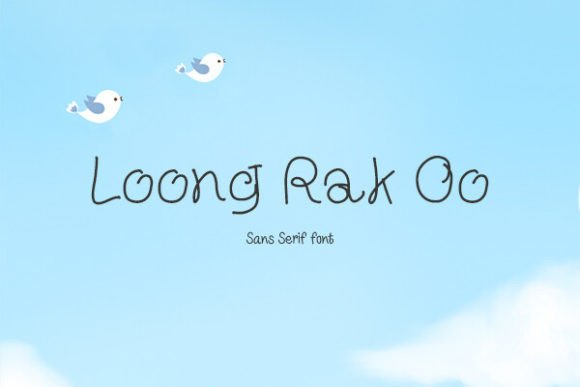
Welcome to the world of Loong Rak Oo, a sans serif font family bursting with charm and playfulness! This unique and eye-catching font style is the brainchild of TanoiCartoonist, a creative mind who knows the true power of a captivating font. Get ready to infuse your designs with a touch of whimsy and magic with Loong Rak Oo.
Loong Rak Oo isn't just a font; it's an experience. It's a font that sparks joy, ignites creativity, and captures hearts with its charming personality. Its distinct style and unconventional look make it a standout, ensuring your projects and messages leave a lasting impression. Unleash your inner child and let your imagination soar with Loong Rak Oo.
Imagine the delightful smiles on the faces of your loved ones as they receive invitations adorned with the adorable Loong Rak Oo font. Its cheerful presence will bring warmth and happiness to any occasion, whether it's a kid's birthday party, a summer barbecue, or a festive holiday gathering.
Loong Rak Oo's versatility extends beyond invitations. It's the perfect companion for your creative endeavors, adding a touch of enchantment to your diary entries, posters, blog posts, and even your clothing designs. Its friendly and inviting nature makes it ideal for child-related designs, creating a sense of wonder and enchantment that will captivate young minds.
Step into a world of creativity and let Loong Rak Oo transform your projects into masterpieces. Add it to your digital toolbox and watch as your designs come to life with a unique and unforgettable charm. Bring your vision to reality, one delightful project at a time, with the magic of Loong Rak Oo.